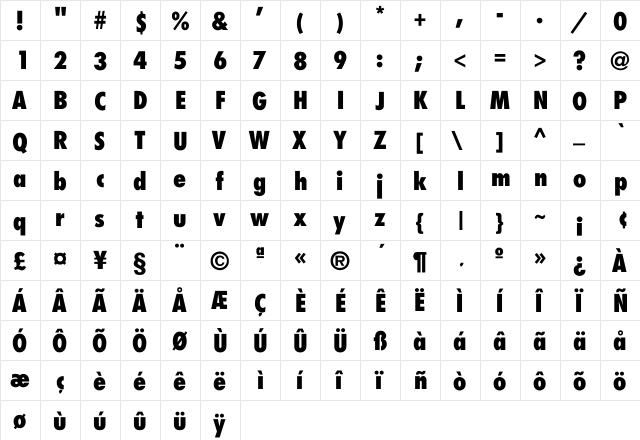
Souerson_ExtraBold-Normal Regular
Design Context for Souerson_ExtraBold-Normal Typeface
Souerson_ExtraBold-Normal is a composed and adaptable typeface that performs quietly and consistently across a wide range of design contexts. Its bold stroke weight gives it real presence on the page.